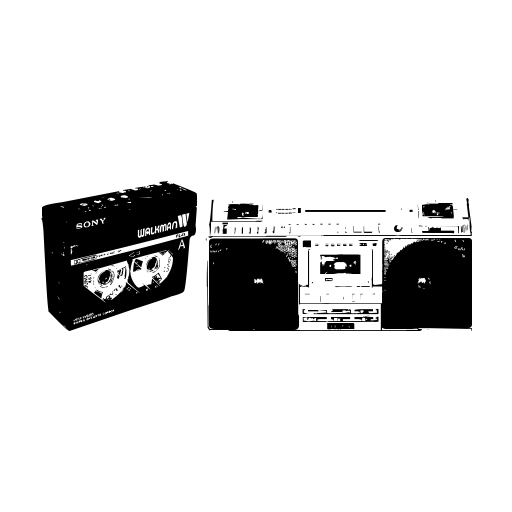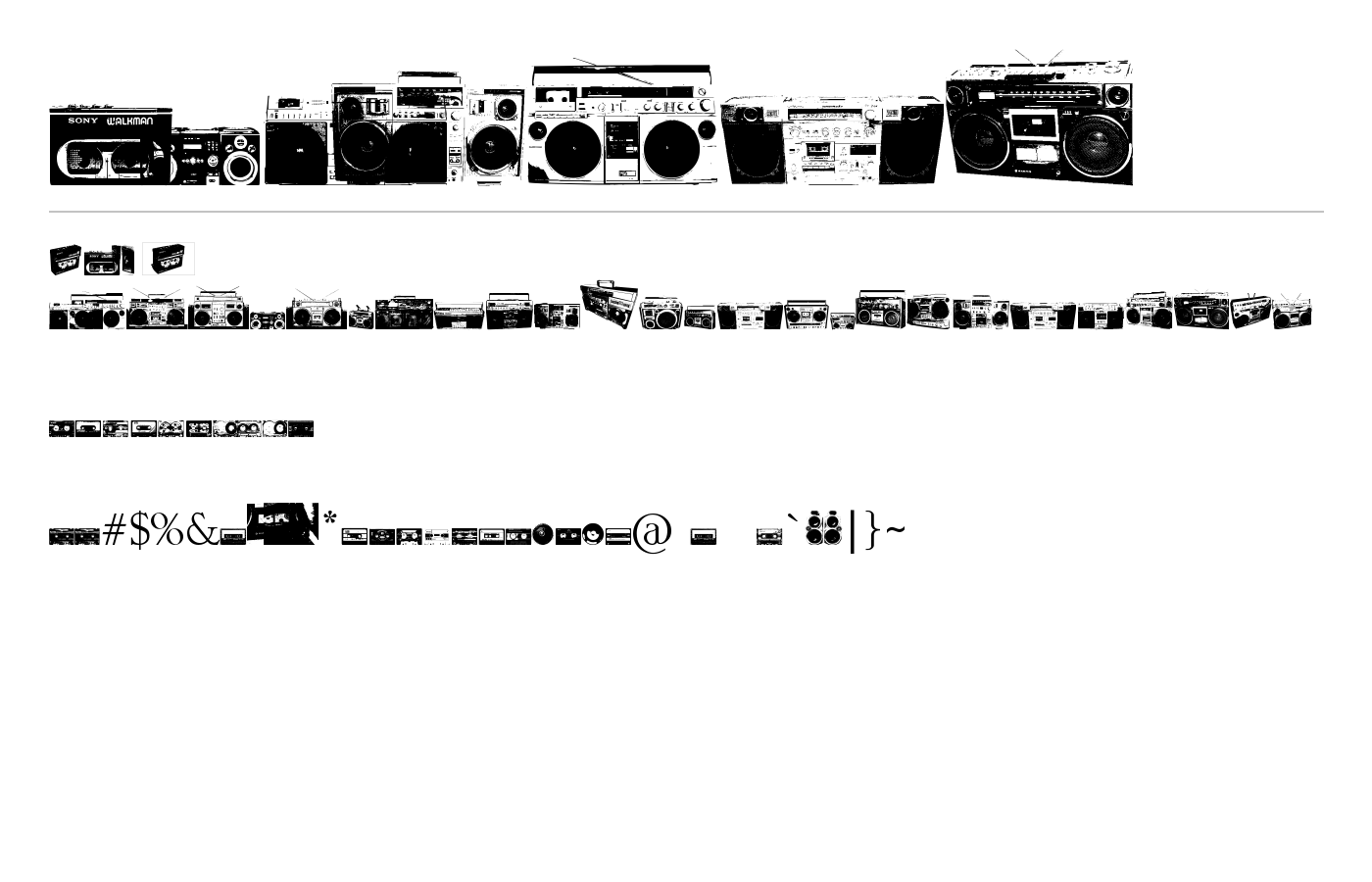
Beatbox Font is a highly unique and playful symbol typeface composed entirely of detailed retro boombox and cassette player illustrations. Instead of traditional letters, each character consists of a small, intricate image, making it ideal for creative projects that seek a nostalgic, music-inspired vibe. This font works best in eye-catching headlines, logos, or posters where a bold, vintage audio theme is desired.
Beatbox Font
About Beatbox Font